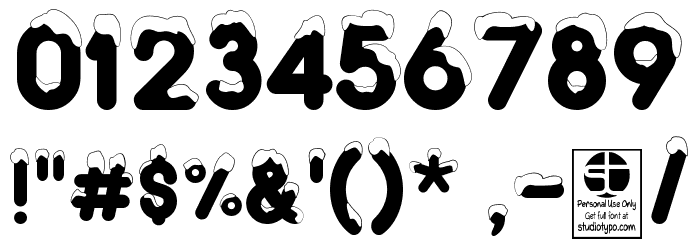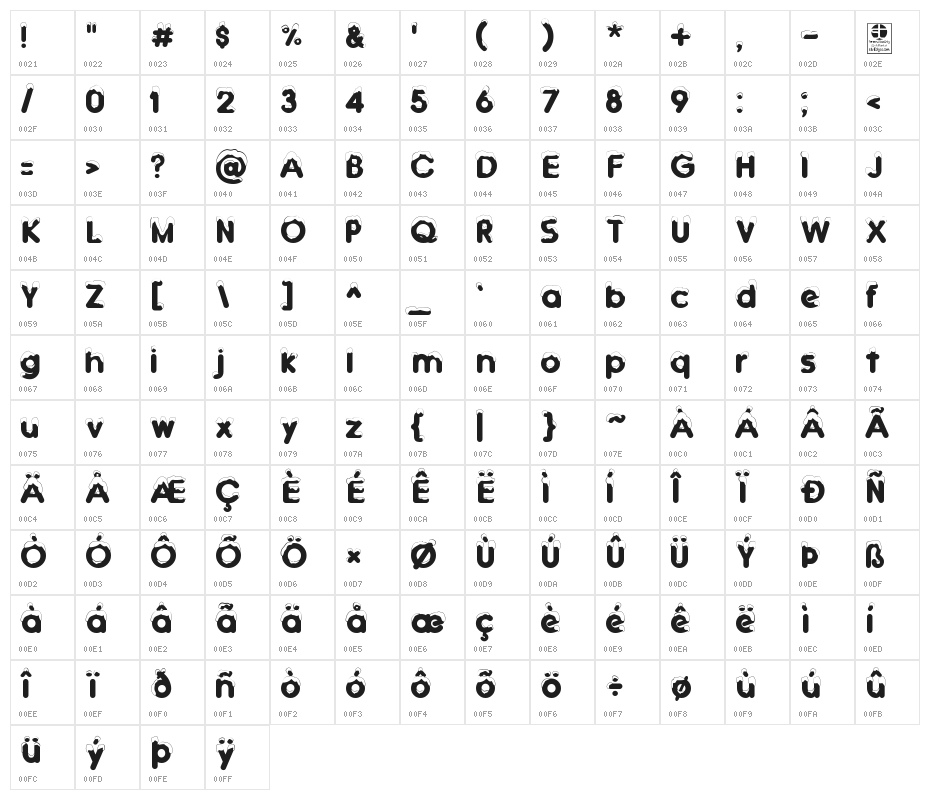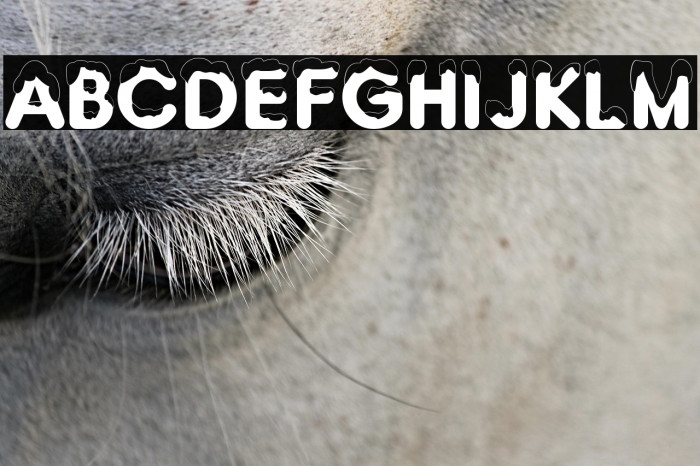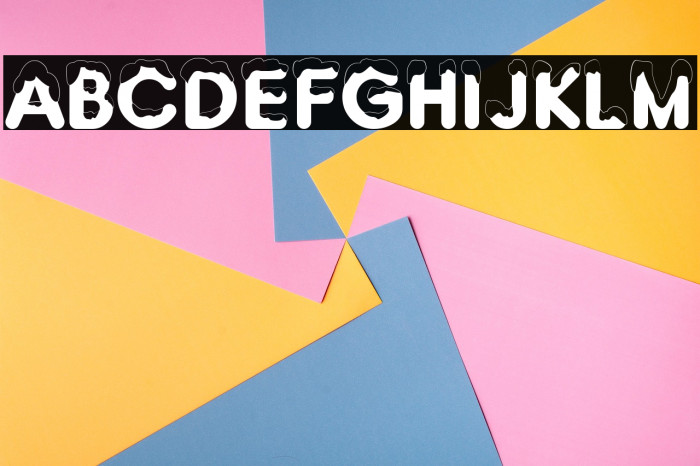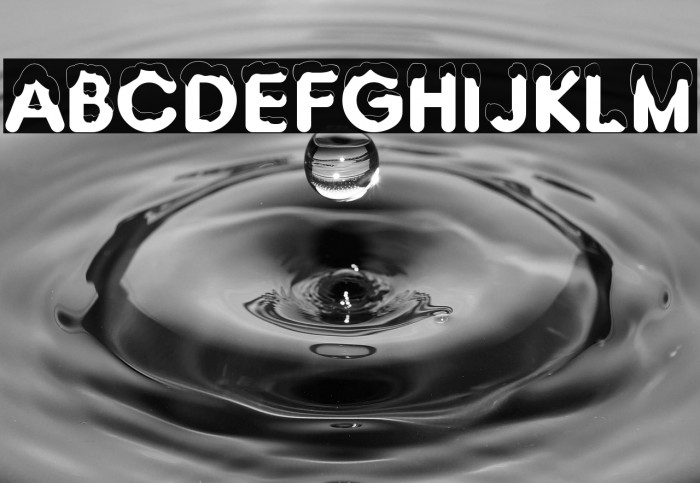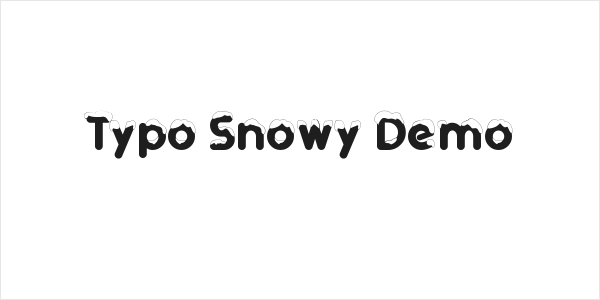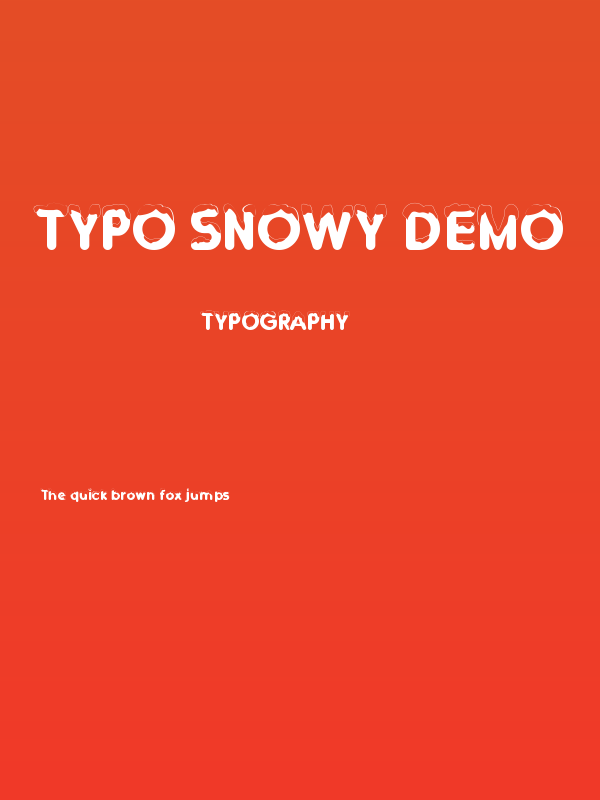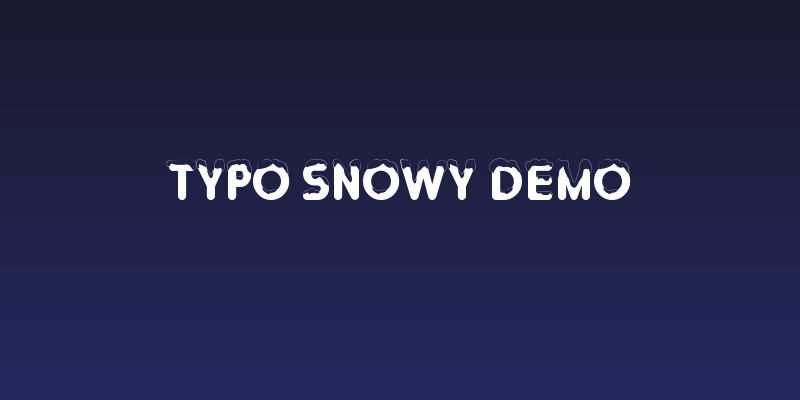
Typo Snowy Demo Font
Typo Snowy Demo Description
This playful and whimsical font features a unique design where each character is adorned with a snow-like effect on top, creating a festive and wintery appearance. The letters are bold and rounded, providing a friendly and approachable feel. The snow detail adds a decorative touch, making it ideal for seasonal themes. The characters maintain a consistent thickness, ensuring readability while the snow effect adds a layer of visual interest. This font is perfect for capturing the essence of winter holidays or any project that requires a touch of fun and creativity.
| Proposed Projects | Holiday cards, winter event posters, festive invitations, seasonal advertisements, children's book covers. |